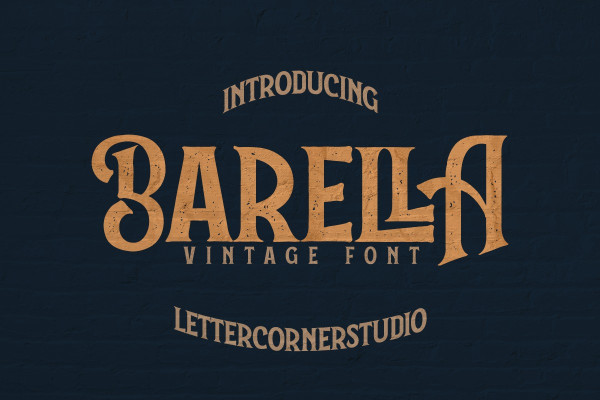
Barella Vintage Font
Barella Vintage Font, This font is perfect for stickers, retro projects, craft projects, shirts, svg designs, procreate designs, branding, blogs, logos, invitations and more!